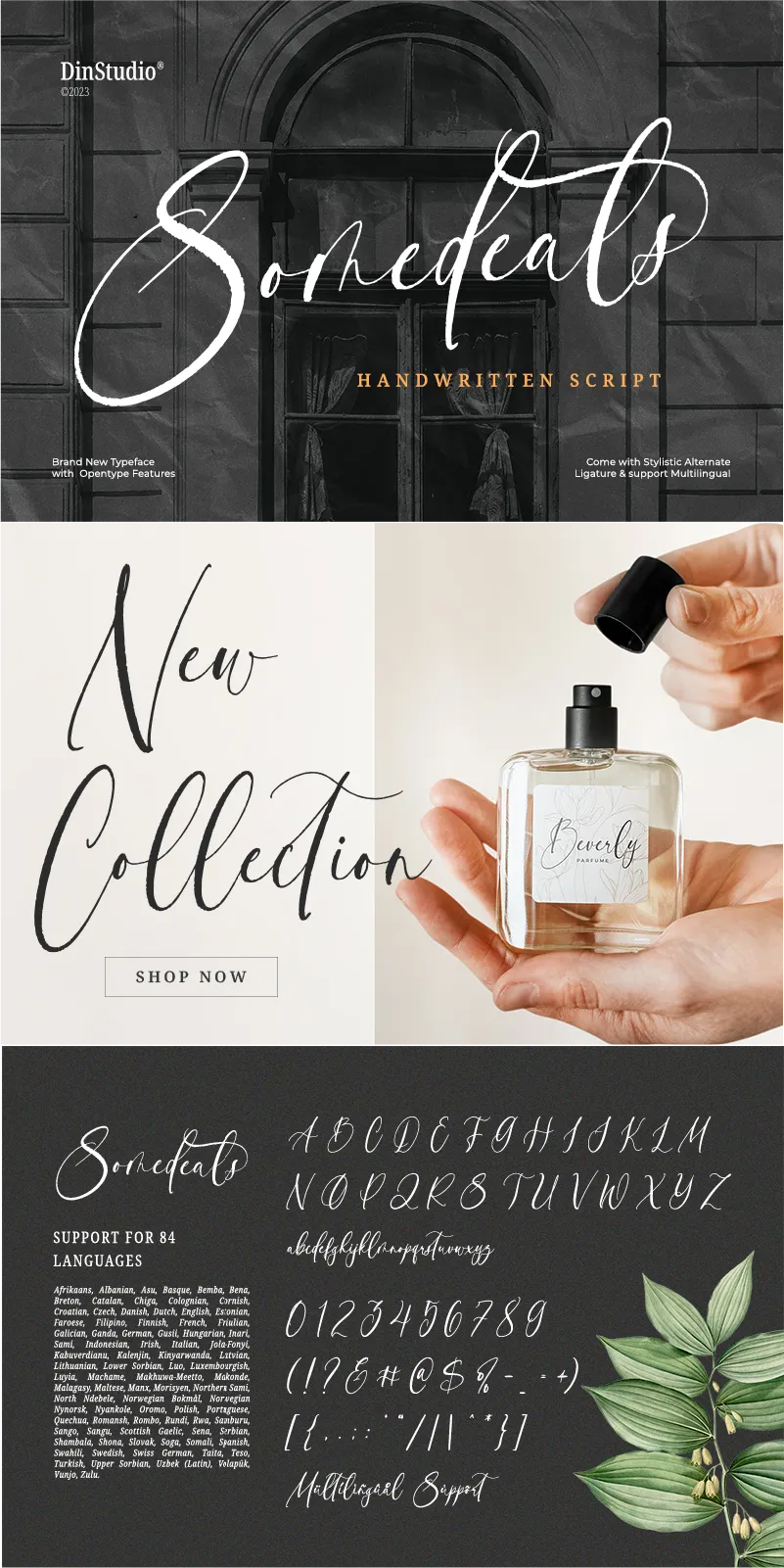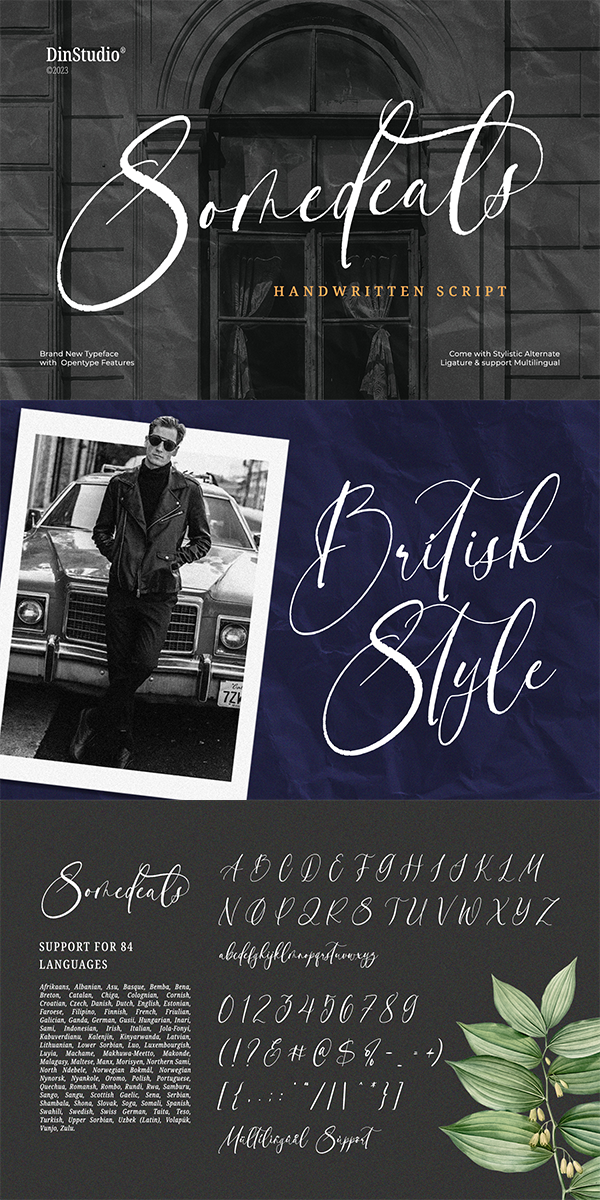
Somedeals Font
About Somedeals
Somedeals is a captivating script font that beautifully captures the essence of cursive handwriting with a touch of elegance. With its smooth and fluid letterforms, Somedeals offers a natural and seamless writing style, evoking the charm of handwritten notes. The high letter contrast in this font adds a dynamic and eye-catching quality, enhancing the overall visual appeal and making each word stand out. For the best legibility you can use this font in the bigger text sizes. In addition, enjoy the available features here.
Stylistic Sets
Somedeals fits in headlines, logos, movie posters, flyers, invitations, greeting cards, branding materials, print media, editorial layouts, headers, and many more. Find out more ways to use this font by taking a look at the font preview.